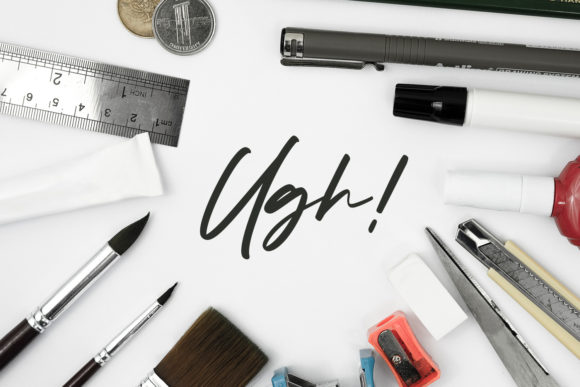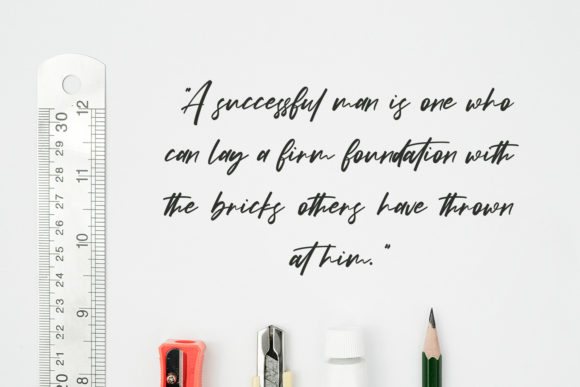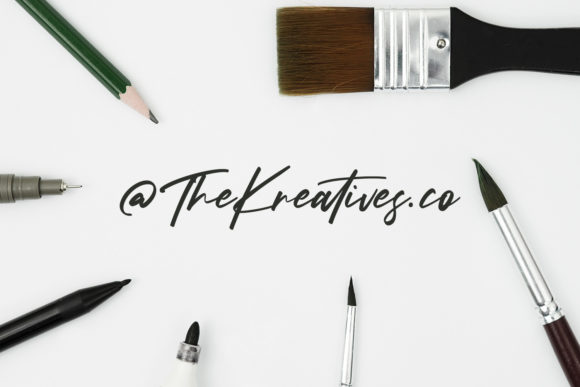
About Kreatives Script Font
Introducing Kreatives Script, a beautiful handwritten font that will elevate your design projects with its unique style and stunning impact. This font exudes a sense of creativity and elegance, making it the perfect choice for adding a touch of luxury to your designs.
Kreatives Script is crafted with meticulous attention to detail, ensuring that each letter has a distinct and beautiful touch. Its flowing and organic strokes give it a natural and handcrafted feel, making your text stand out with its authenticity and charm. The characters are carefully designed to be visually appealing and harmonious, creating a cohesive and visually pleasing composition.
With Kreatives Script, you have the freedom to create captivating designs. Its versatile nature makes it suitable for a wide range of projects, including logos, branding, invitations, posters, and more. Whether you’re working on a high-end luxury brand or a creative and artistic project, this font will bring a sense of sophistication and style to your designs.
What sets Kreatives Script apart is its ability to add a luxurious spark to any project. Its unique feel and stunning impact will instantly elevate the visual appeal of your designs, making them stand out from the crowd. Whether you’re creating a fashion magazine, a wedding invitation, or a branding project, this font will add a touch of elegance and refinement.
Embrace your creativity and let Kreatives Script be your companion in bringing your design ideas to life. Experiment with different letter combinations, ligatures, and swashes to create visually captivating and personalized designs. The possibilities are endless with this beautiful handwritten font.
So, go ahead and unleash your creativity with Kreatives Script. Let it be the catalyst that sparks inspiration and adds a luxurious touch to your design projects.